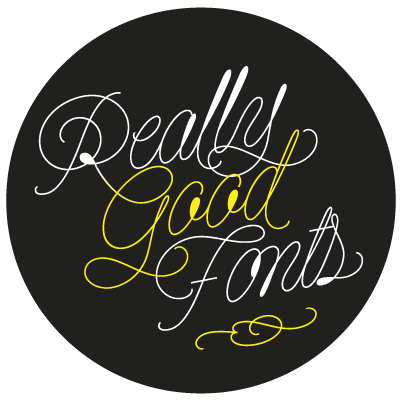
- Inspired by the sound of acoustic guitars, delicacy of harps and elegance of the engrossers script, String is a trendy monoline font which will for sure make unique layouts for your pieces of design. Combining String with String Hole in the same word is a good idea when a more playful rhythm is needed. The font works particularly well when standing on photographs, so be ready to use it in magazines with food, landscapes or super models. I like thinking of String as a distilled version of Erotica. A more “pure” relative of hers. When I designed Erotica, I was so in love with the spencerian style that I knew it'd be hard to just abandon it. With that in mind, this time my aim was to take the subtlety of it to the limit. So, in order to do that I had to find out what was actually the secret of its beauty. I found that the essence of Erotica, in other words, its ductus was the most responsible. The result is a font made of hairlines with a lot of emphasis on the pureness of the form and, (with a lot of inspiration in music) the sensation of continuity between its letters as if they were written with a string. Try String and its flowing melody.